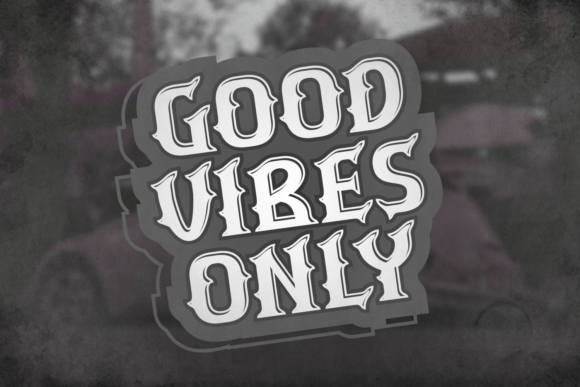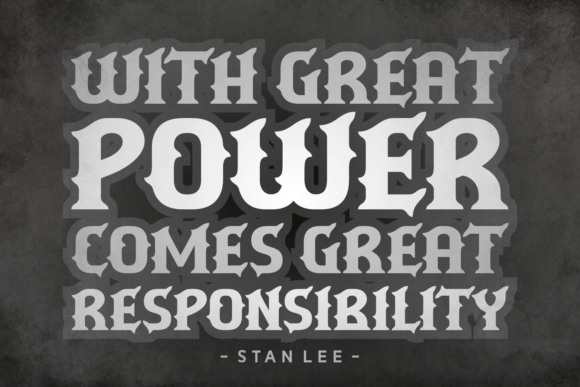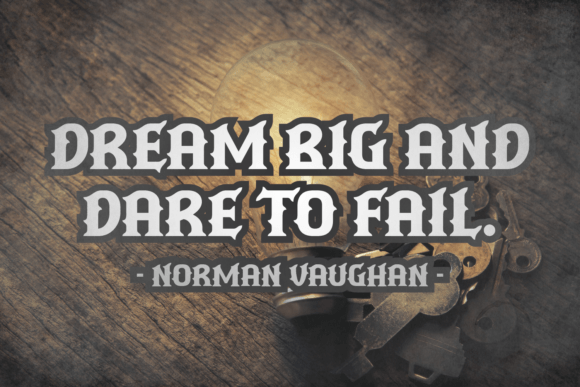
Introduction to Lawas Collect Font
Have you ever stared at a blank canvas, unsure of how to bring your creative project to life? That’s where the right font can make all the difference. For designers seeking a bold and dramatic touch, the Lawas Collect Font is a game-changer. This striking blackletter typeface is inspired by medieval themes, yet versatile enough to elevate modern designs.
Lawas Collect Font’s bold blackletter style adds an edgy flair to streetwear branding, music albums, and beyond. Its high-quality design is perfect for designers who crave a unique and eye-catching aesthetic. Whether you’re working on a free download or a commercial project, this font is sure to make a statement. With a transparent background, it’s easy to integrate into any design, making it a valuable resource for creatives.
With its dramatic flair and modern appeal, the Lawas Collect Font is a must-have for designers looking to take their work to the next level. In this article, we’ll delve into the world of this captivating font and explore its many uses and benefits.
Key Features of Lawas Collect Font
- Transparent background, making it easy to use in various design applications.
- Unique characteristics include a modern and sleek design, perfect for branding and typography projects.
- Includes a wide range of characters, including uppercase and lowercase letters, numbers, and punctuation marks.
Honest Review: Lawas Collect Font
As a designer, I’m always on the lookout for high-quality design resources that can elevate my creative projects. Recently, I stumbled upon the Lawas Collect Font, and I must say, it’s been a game-changer.
Here are some things that work well: ✨ The font is incredibly versatile, making it perfect for a wide range of design projects. I’ve used it for logos, brochures, and even social media graphics, and it looks amazing every time. ✨ The font is also available for free download, which is a major plus in my book. ✨ The transparent background option is also a great feature, allowing me to easily customize my designs.
- Highly versatile font
However, I did encounter some limitations: ⚠️ The font selection is limited, which may not be ideal for designers who require a wide range of font options. ⚠️ The font is not suitable for large-scale printing, which is a drawback for designers who need to print their work.
Overall, I’m thoroughly impressed with the Lawas Collect Font. While it may have some limitations, its high quality and versatility make it a valuable design resource that I’ll continue to use for my creative projects.
Tips for Getting the Most Out of Lawas Collect Font
Experiment with different font sizes and styles to create a unique visual effect. Use the font in conjunction with other design elements, such as shapes and images, to create a complex and visually appealing design. The high-quality design resource can be used in a variety of creative projects, from presentations to marketing materials.
The Lawas Collect Font is a versatile design resource that can be used in a variety of creative projects. It is particularly useful for presentations, marketing materials, and documents where a high-quality and visually appealing font is required. You can also use the font in conjunction with other design elements to create a unique and creative visual effect.